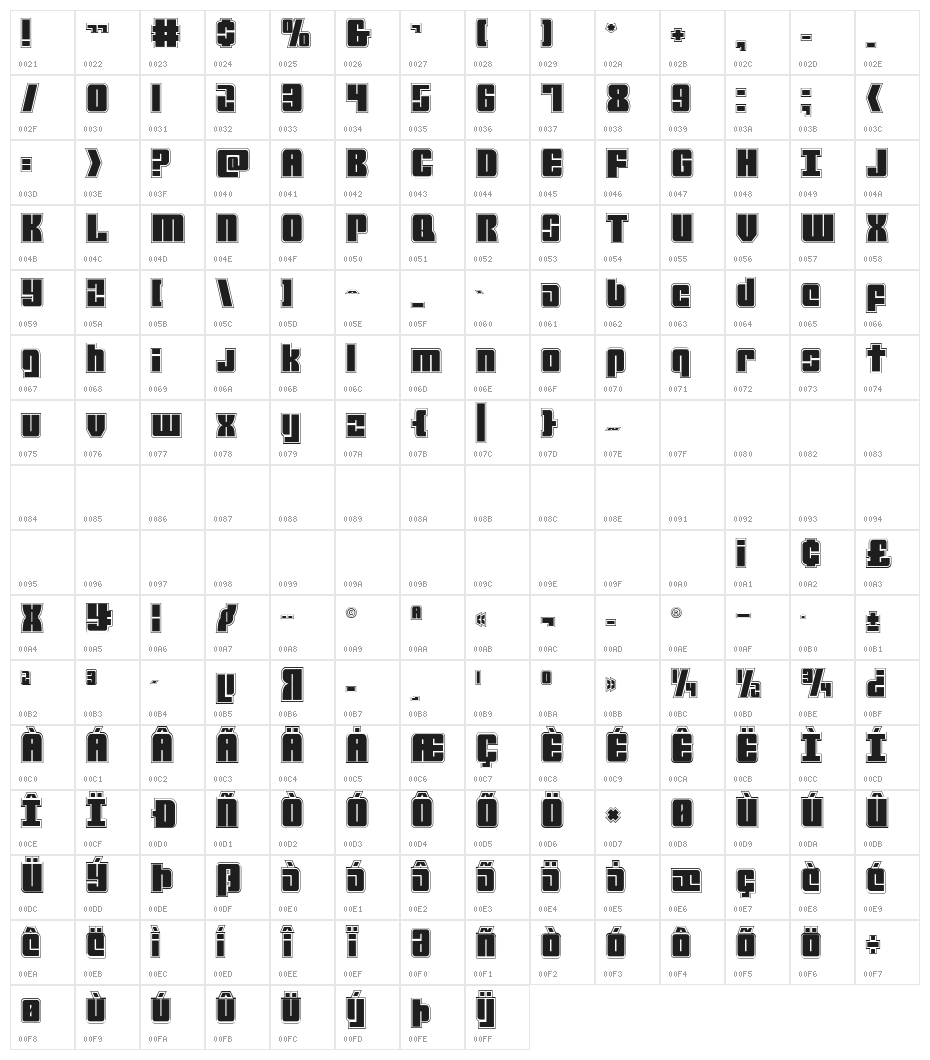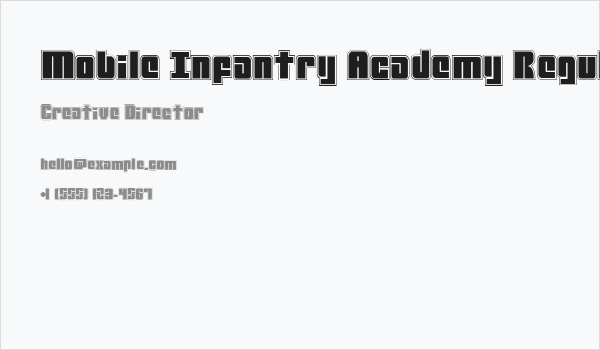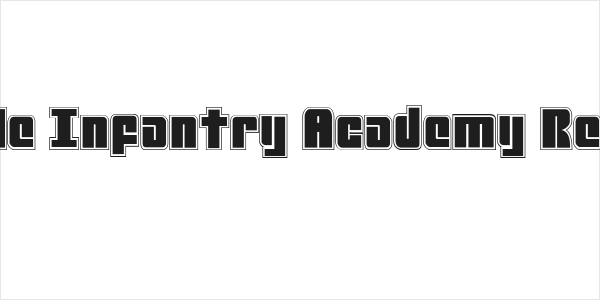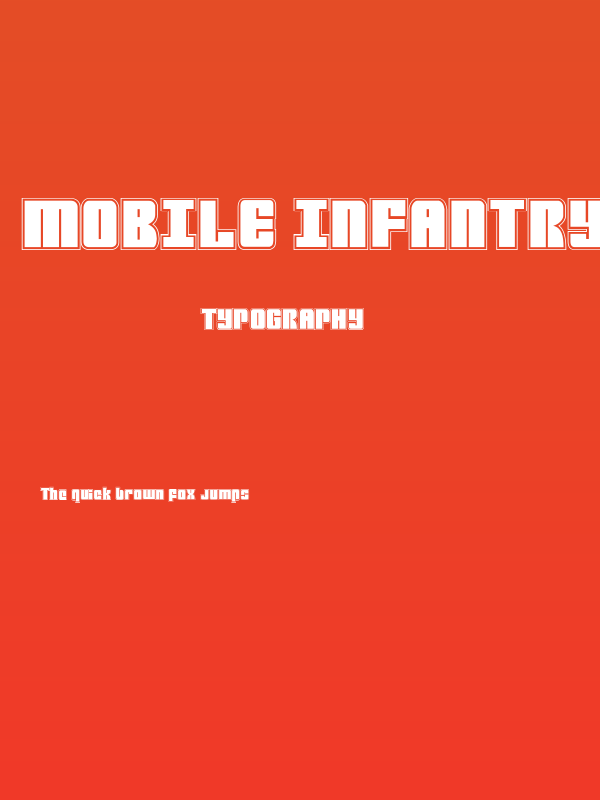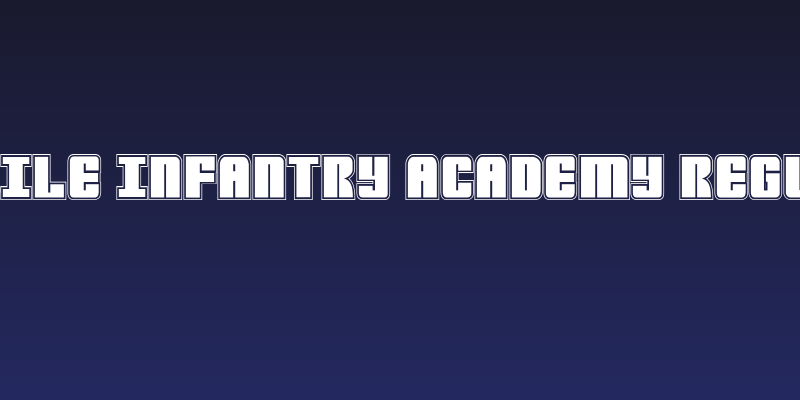
Mobile Infantry Academy Regular Font
Mobile Infantry Academy Regular Description
This font features a bold and robust design with a strong geometric structure. The characters are enclosed in thick outlines, giving them a three-dimensional appearance. The uppercase and lowercase letters maintain a uniform height, creating a cohesive look. The numbers and special characters follow the same bold style, ensuring consistency across all elements. The font's design is reminiscent of military or industrial themes, with its blocky and impactful presence. It is well-suited for projects that require a strong visual statement.
| Proposed Projects | Ideal for posters, logos, video game graphics, and any project needing a bold, impactful typeface. |